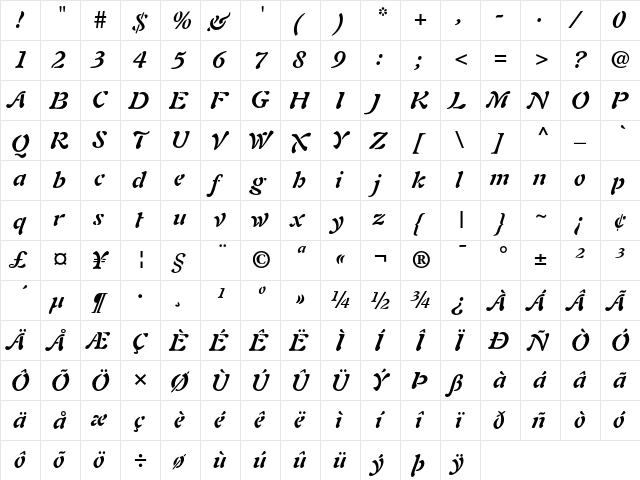
Auriol Bold Italic
Design Context for Auriol Typeface
Auriol offers clean, dependable letterforms without strong stylistic allegiance, making it a practical choice for designers who need flexibility. Its italic angle brings a sense of urgency and motion to the letterforms. Its bold stroke weight gives it real presence on the page.
Pro Tip: Use Auriol for emphasis, pull quotes, and subheadings where its slanted energy can add rhythm to the layout.